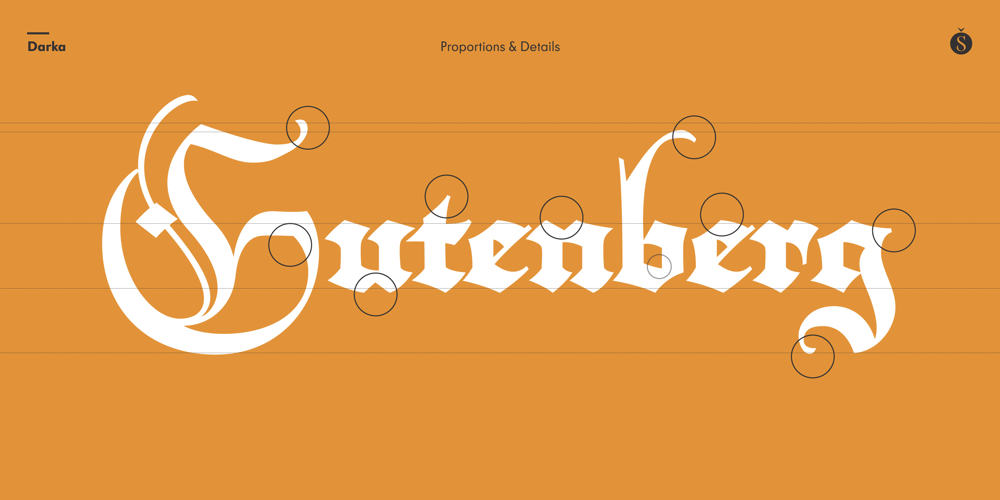
Darka Font Family was designed by Gabriel Martínez Meave and published by Sudtipos. Darka contains 1 styles and family package options. Darka is a splendid, mysterious dark lady reincarnated in digital vectors as an original blackletter font. Her gothic, medieval, nocturnal attributes take the form of sharp terminals, seductive curves, calligraphic flair and complex character. Darka blends the balance of Textura, the flow of Fraktur and the elegant lowercase-to-uppercase ratio of Bâtarde into a stylish, inventive typeface with a Mexican soul. Starting as a personal, calligraphic hand, Darka slowly evolved into digital type, developing alternate glyphs, flourishes and special signs to preserve its hand-written origins and delicate tension, making it an excellent display typeface and, surprisingly, even a distinctive, crisp font for short texts. Darka received an Award of Excellence at the Type Directors Club of New York annual competition.